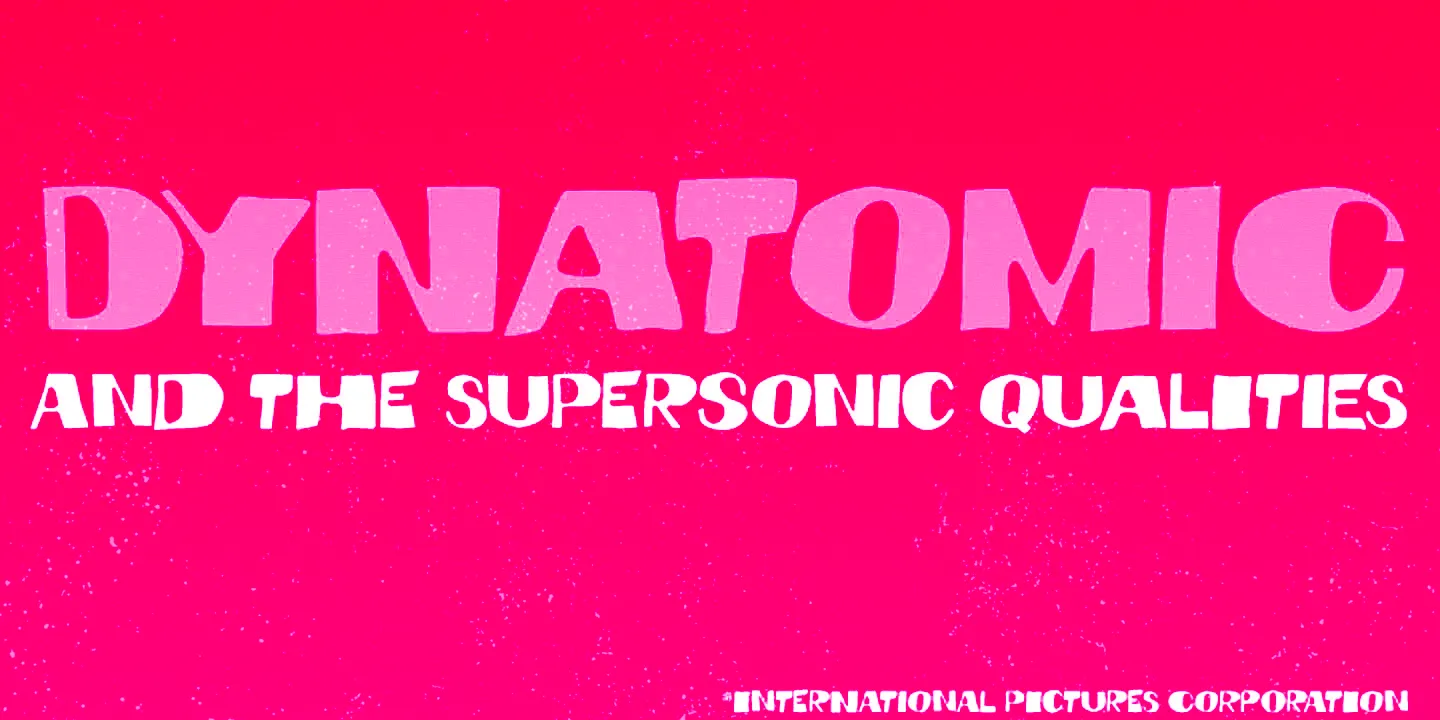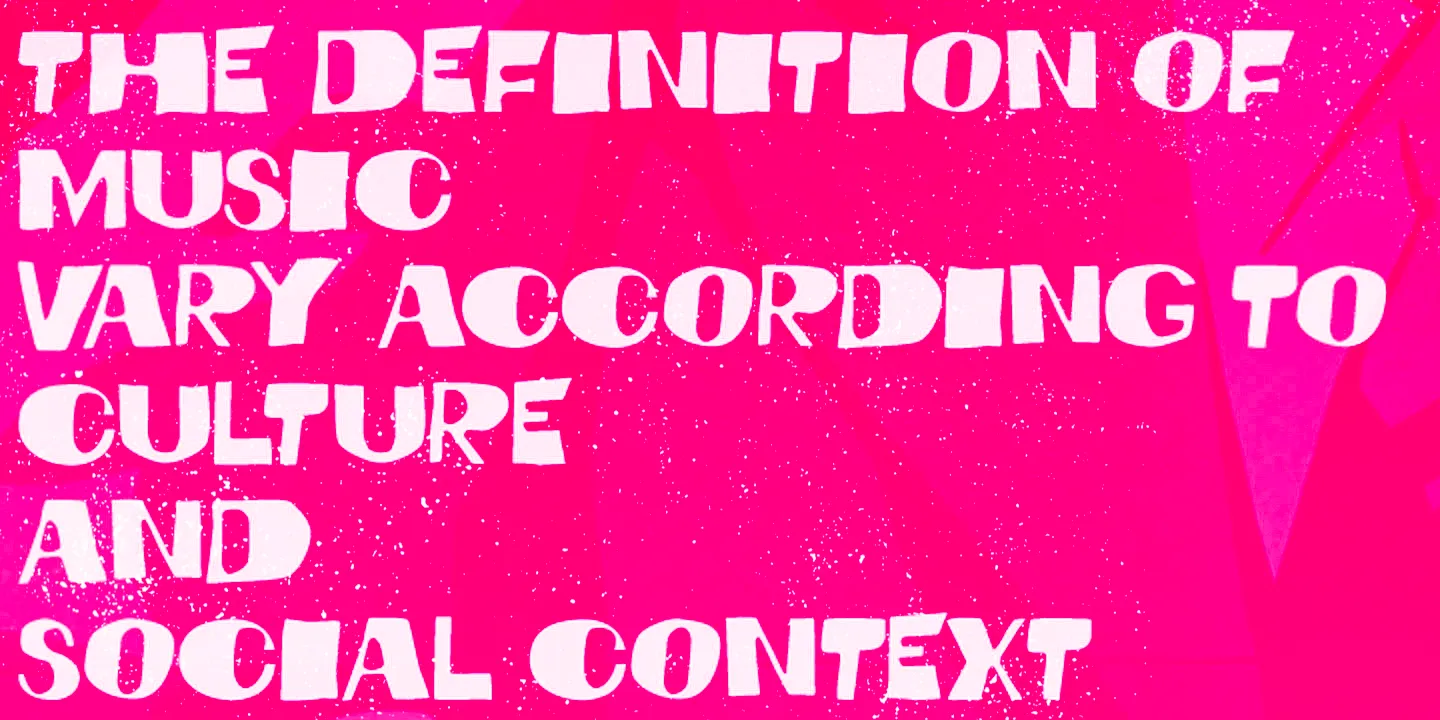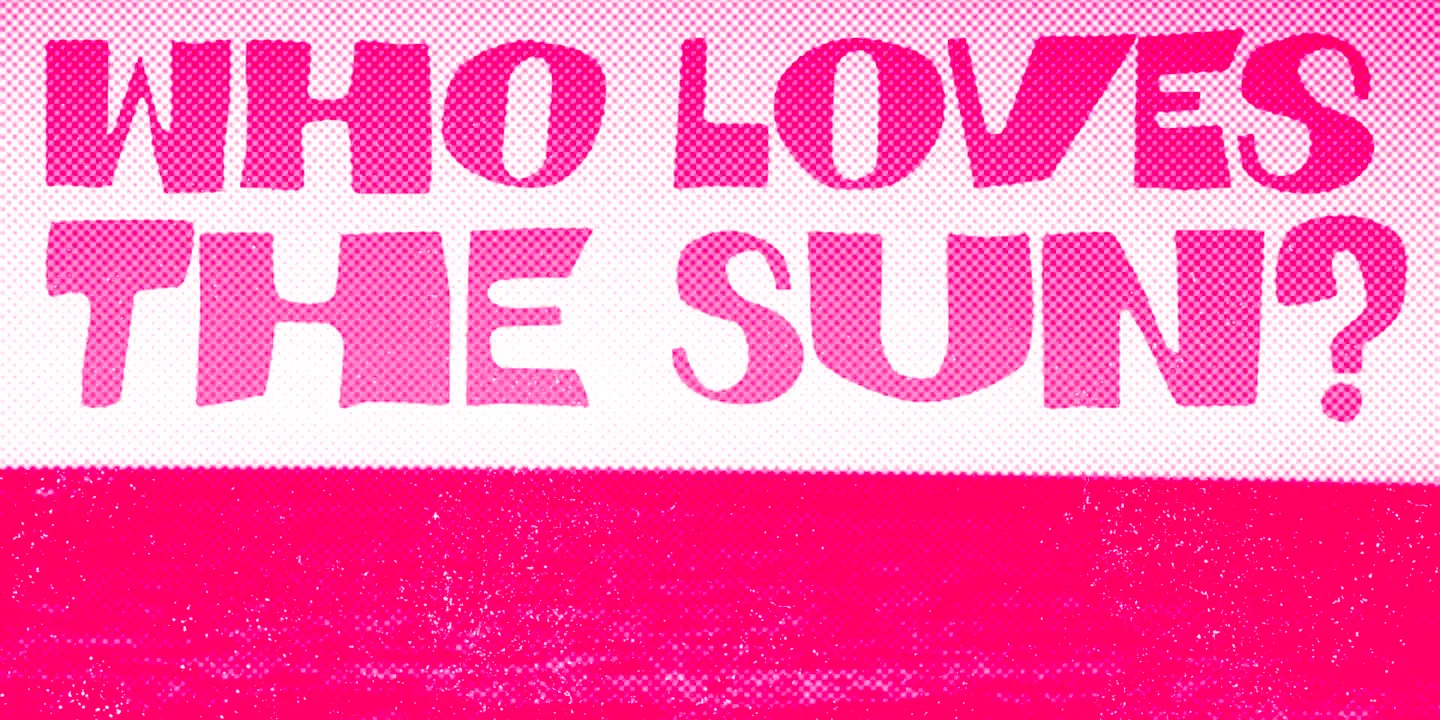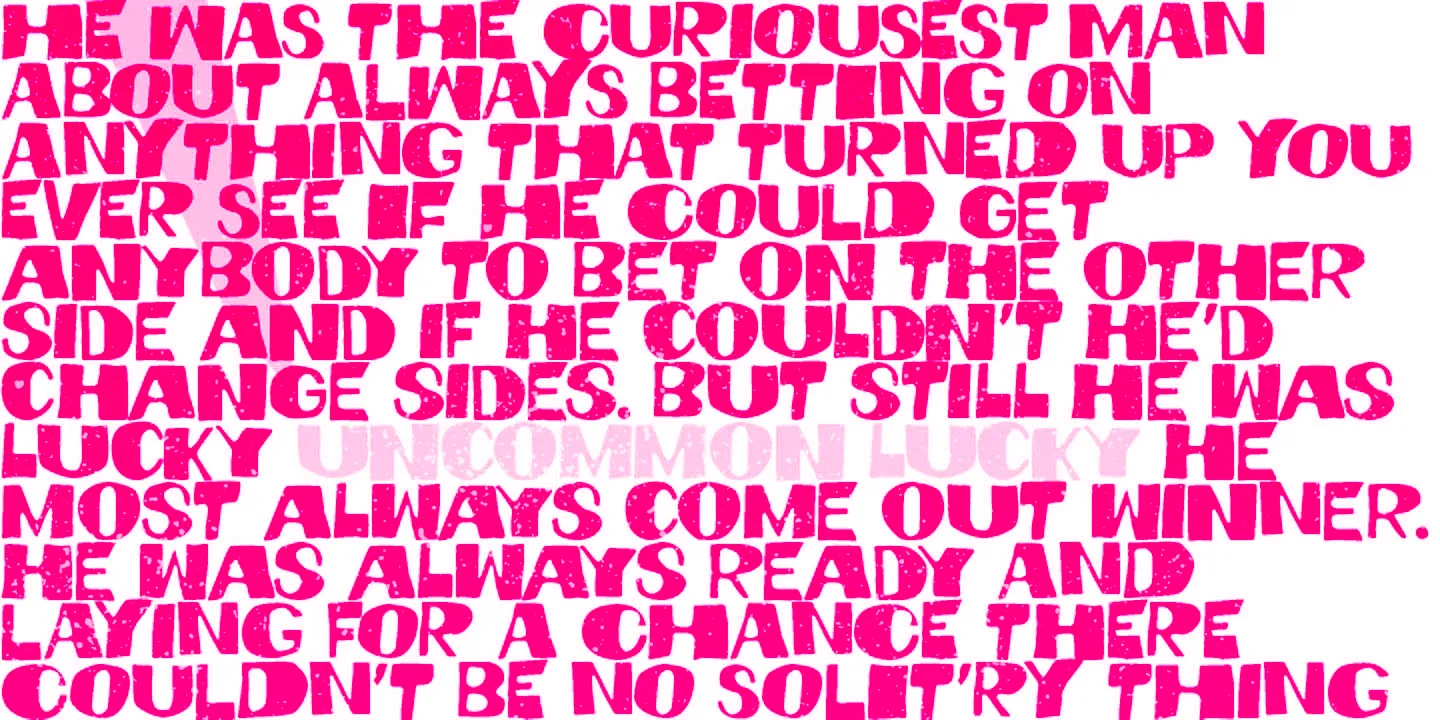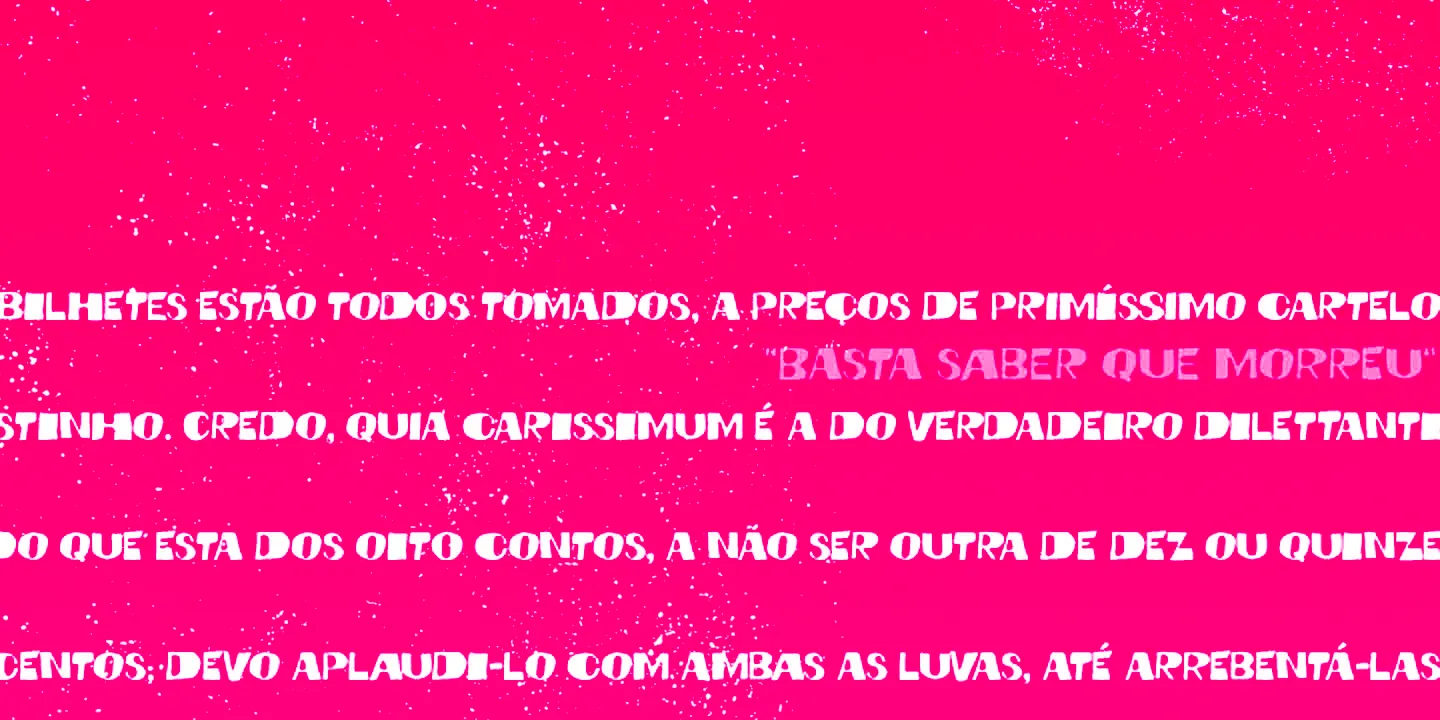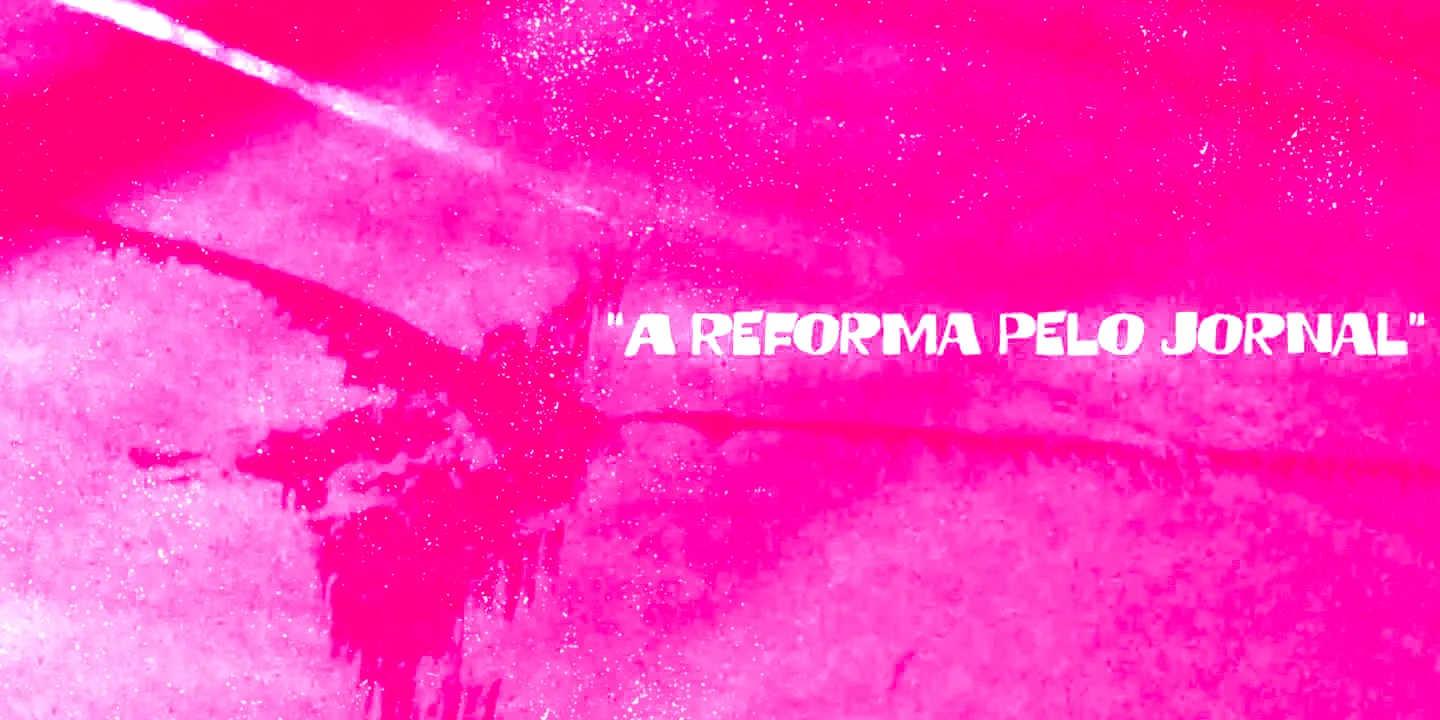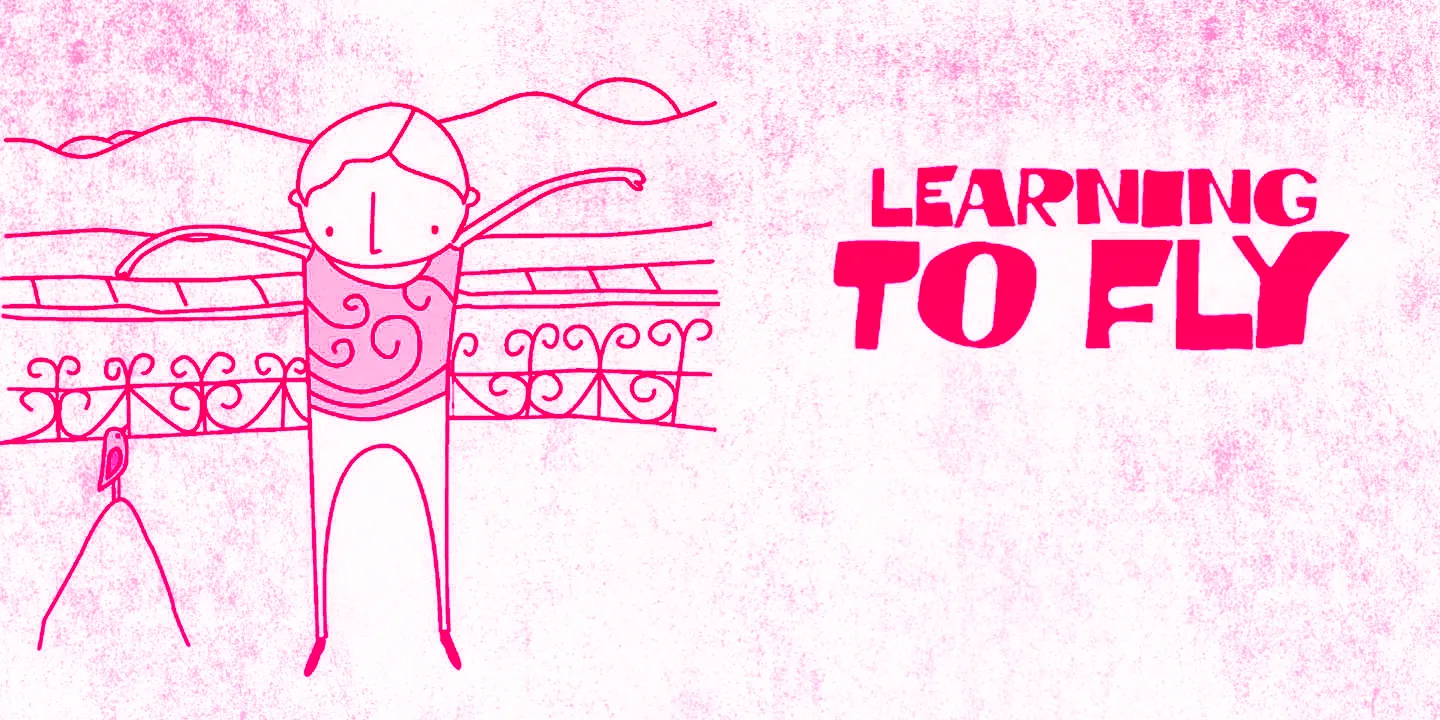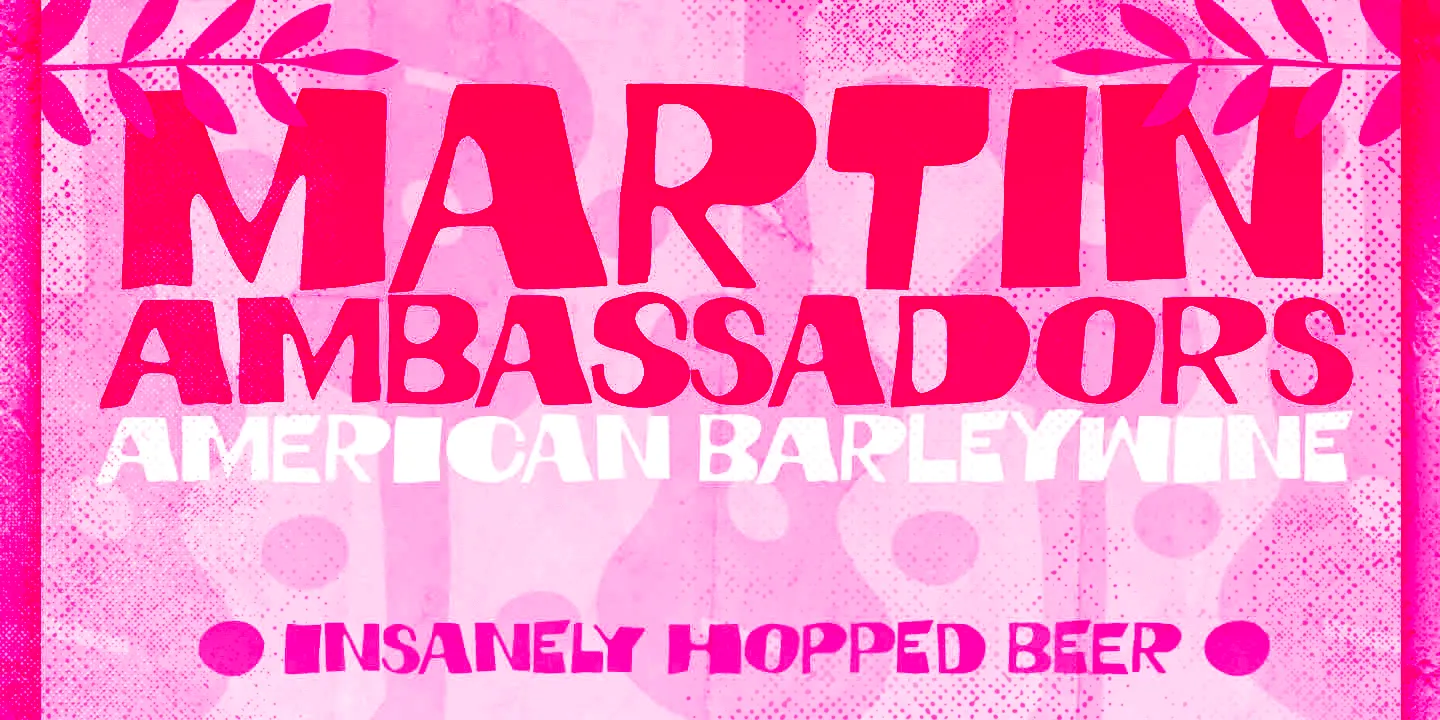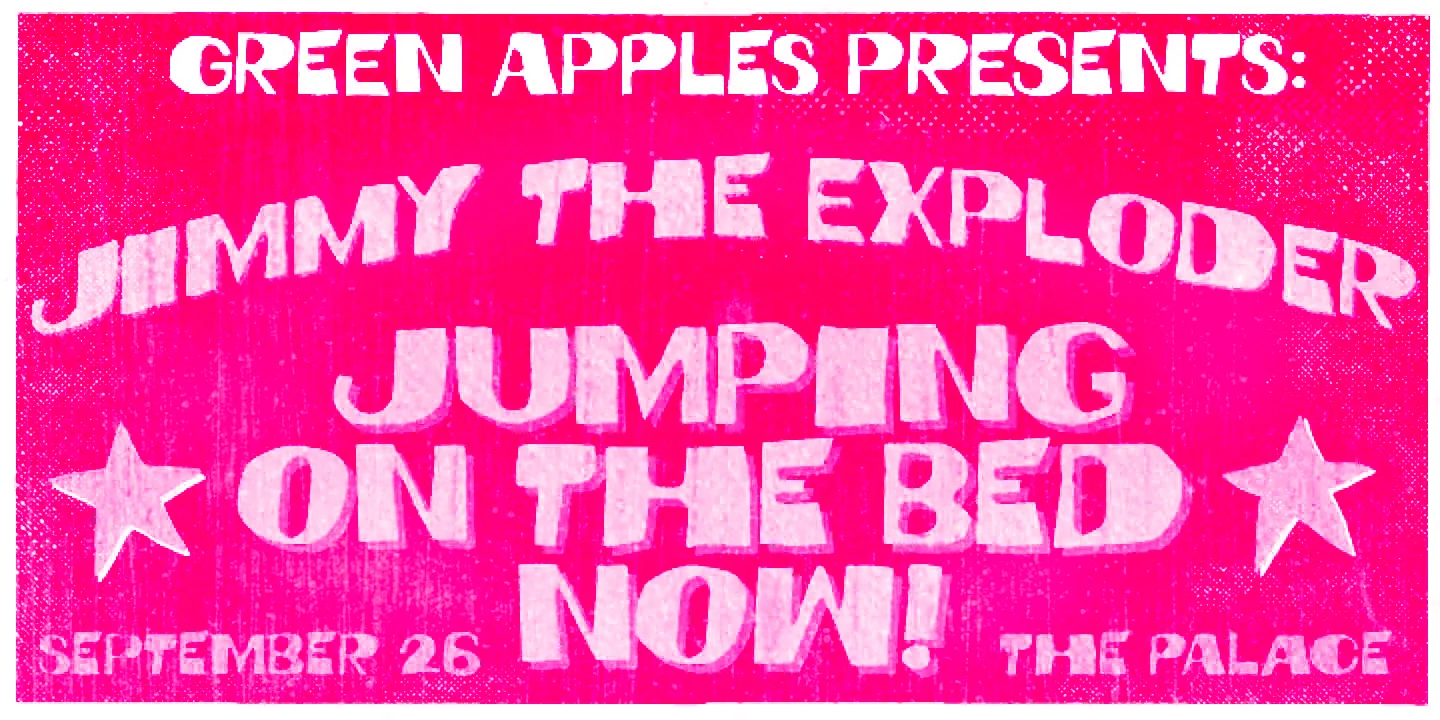
Dynatomic Font
Dynatomic
Dynatomic is a vigorous display typeface inspired by Andrzej Krajewski’s expressive hand-drawn lettering from a 1964 Polish film poster. Its bold forms and striking rhythm make it instantly eye-catching! Dynatomic is a strong choice for everything from posters and book covers to packaging and editorial headlines.